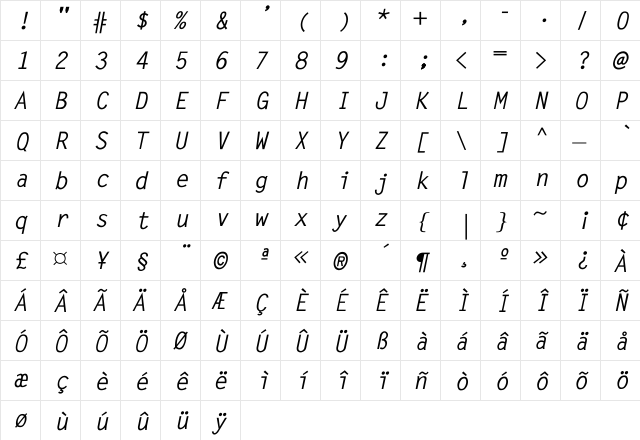
LetterGothic-BoldItalic Regular
Design Context for LetterGothic-BoldItalic Typeface
LetterGothic-BoldItalic has the quiet confidence of well-executed sans-serif typography: versatile, unobtrusive, and dependable at any size. Its italic angle brings a sense of urgency and motion to the letterforms. Its bold stroke weight gives it real presence on the page.
Well-suited to navigation labels, product packaging, and anywhere legibility at scale is essential.
Font Pairing: Use LetterGothic-BoldItalic for headlines alongside a lighter-weight sans or serif for body copy to establish clear visual hierarchy.
Pro Tip: Use LetterGothic-BoldItalic for UI labels, navigation, and short-form body copy where clean legibility is the priority.